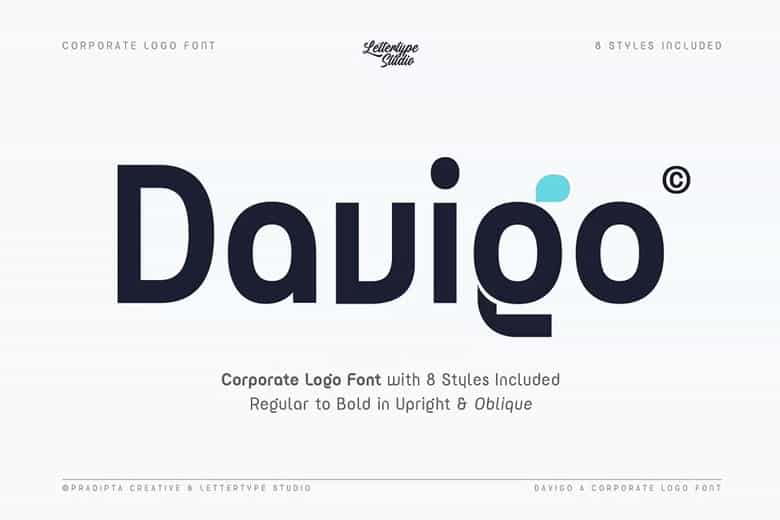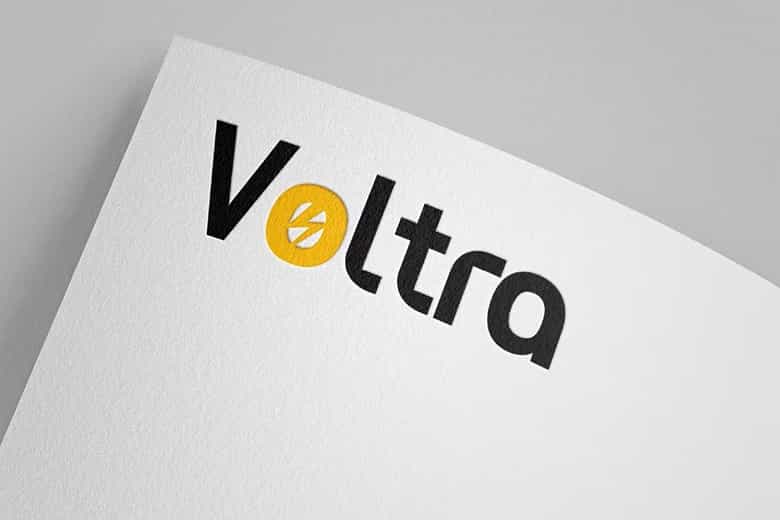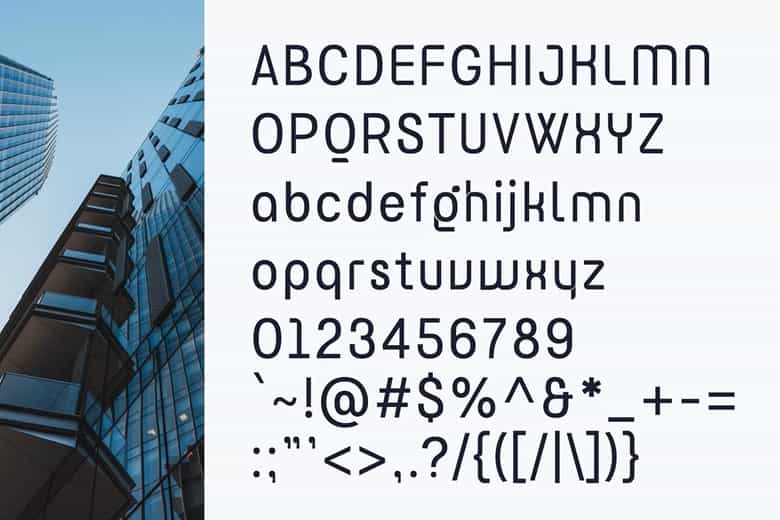
Davigo is a new, multi-purpose geometric sans-serif logo font ideal for corporate and editorial projects. Inspired by the contemporary business and branding worldwide, Davigo has precise alignment, balanced letterforms and smooth curves that also make it readable and iconic. It’s designed for best high-impact headlines, strong branding, pitch decks, logo types, web UI and much.